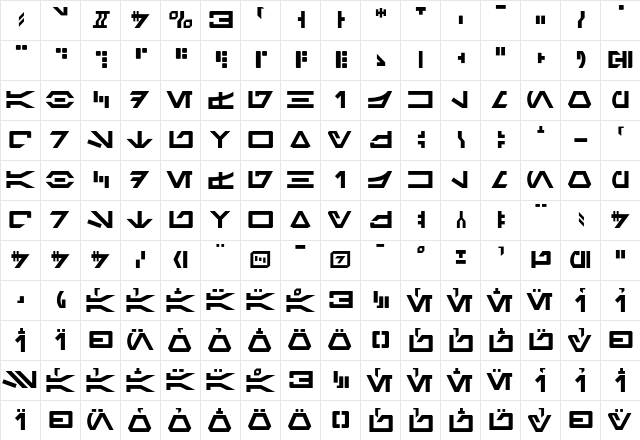
Aurebesh AF CanonTech
Design Context for Aurebesh AF Typeface
Aurebesh AF has a distinctly futuristic character, with geometric precision and clean angles that feel at home in technology, gaming, and sci-fi contexts.
Pro Tip: Try Aurebesh AF with generous letter-spacing in UI labels and navigation — the geometric forms benefit from room to breathe.